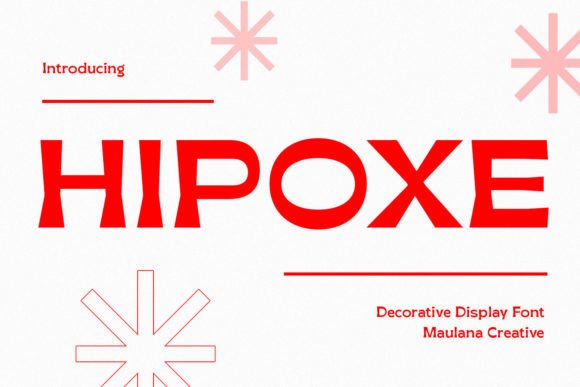
Unleash the power of Hipoxe Font, the epitome of innovation and minimalism in the realm of display fonts. Immerse yourself in a world of captivating design possibilities with this unique creation from Maulana Creative.
Experience the allure of clean, simple letterforms that exude an air of sophistication and refinement. With Hipoxe, your designs will command attention and leave a lasting impression.
Step into the spotlight with logos that radiate boldness and individuality. Craft packaging that captivates the senses and conveys a story of elegance. Elevate your branding materials to new heights with an aesthetic that exudes professionalism and creativity.
Hipoxe is more than just a font; it's an invitation to explore the boundless realm of design possibilities. Whether you're a seasoned designer or just starting your journey, this display font will empower you to create designs that resonate with your audience.
Unleash the brilliance of Hipoxe, and let your designs shine brighter than ever before!